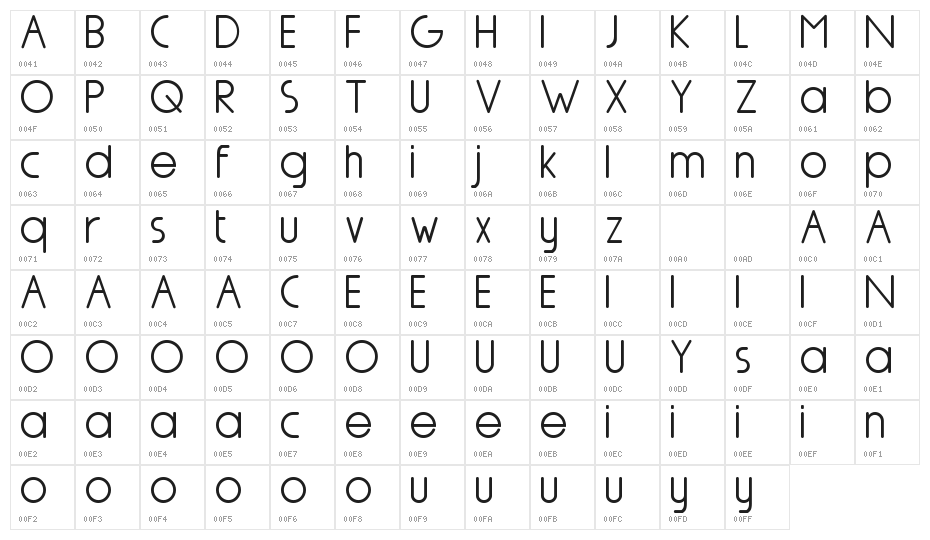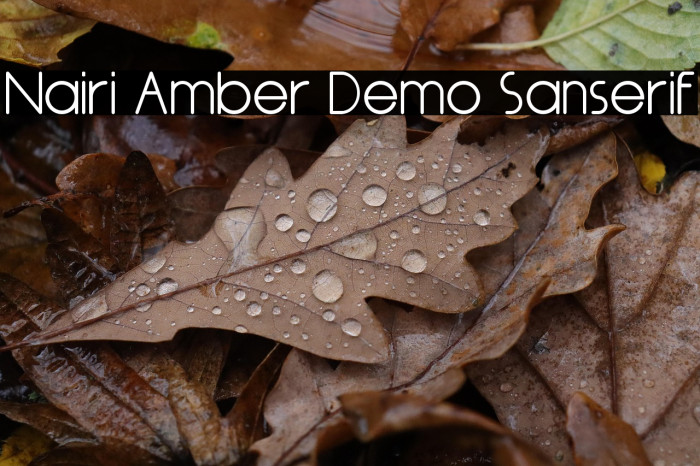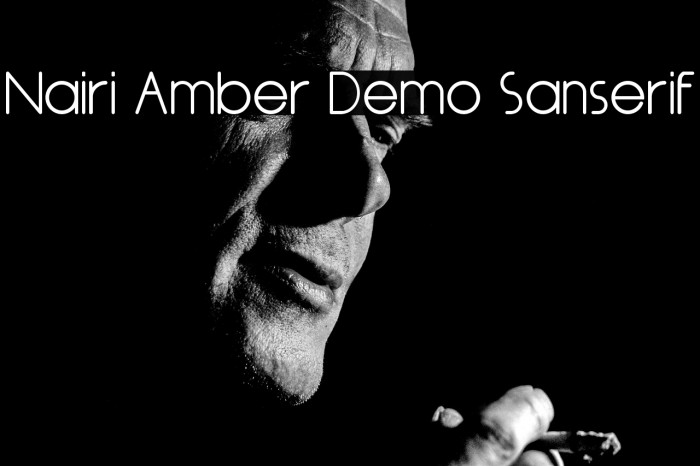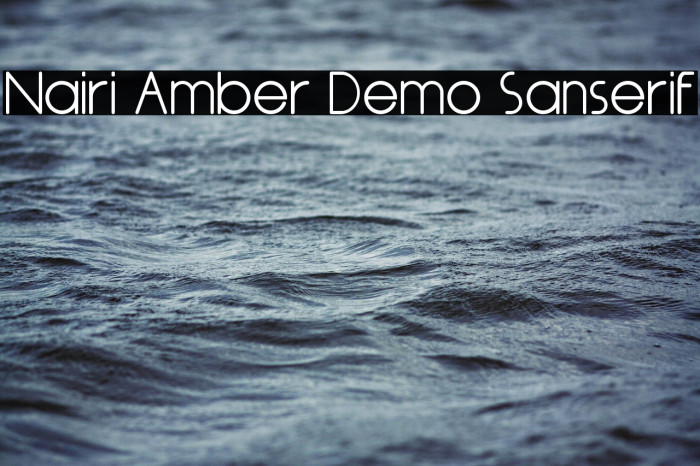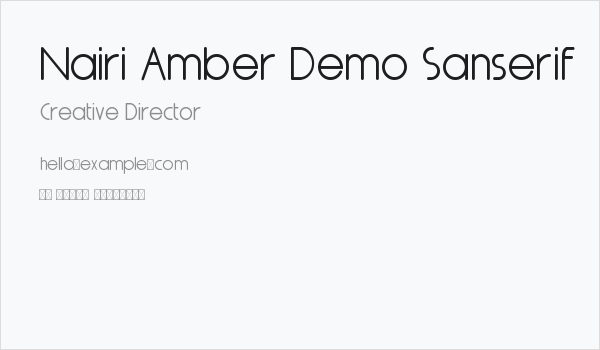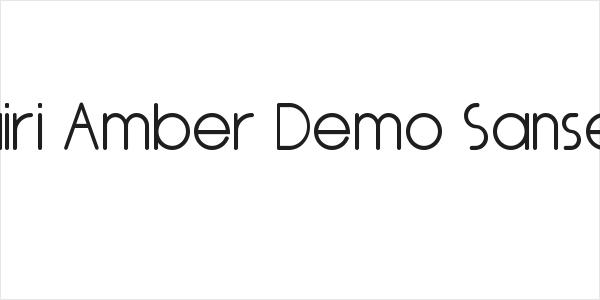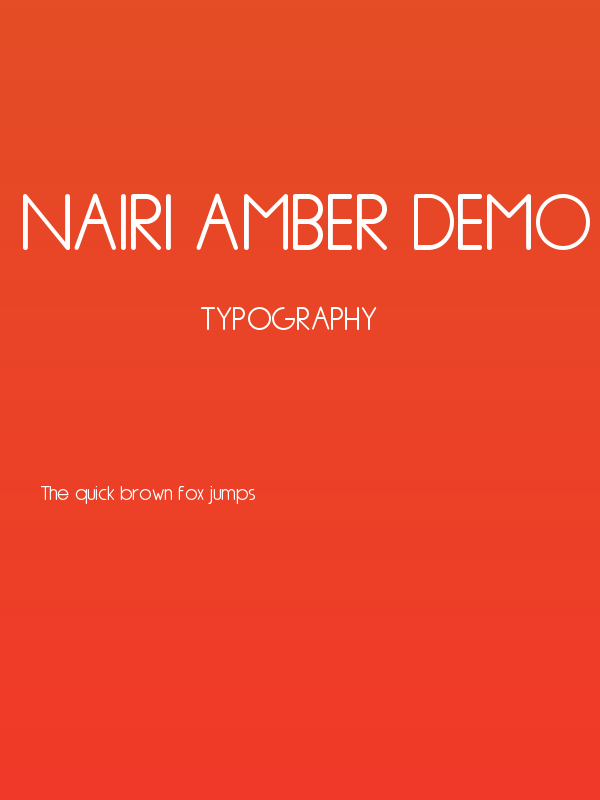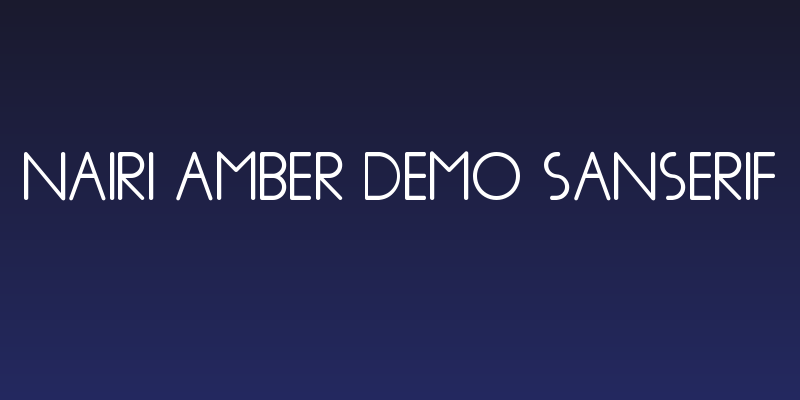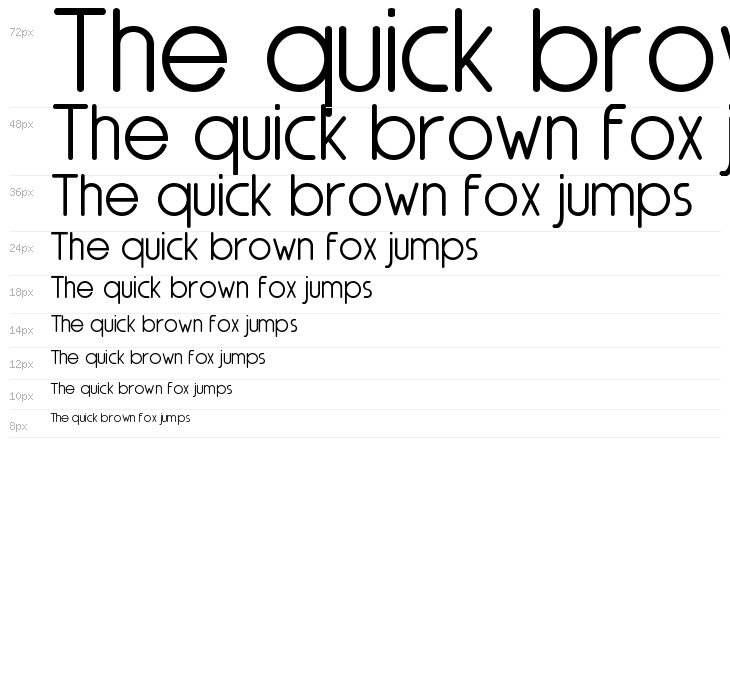
Nairi Amber Demo Sanserif Font
Nairi Amber Demo Sanserif Description
This font features a clean and modern sans-serif design with smooth, rounded edges and a consistent stroke width throughout. The uppercase and lowercase letters maintain a uniform height, creating a harmonious and balanced appearance. The characters are slightly elongated, giving a sleek and contemporary feel. The font's simplicity and clarity make it highly legible, suitable for various design applications. Its geometric shapes and minimalistic style contribute to a professional and polished look, ideal for digital and print media.